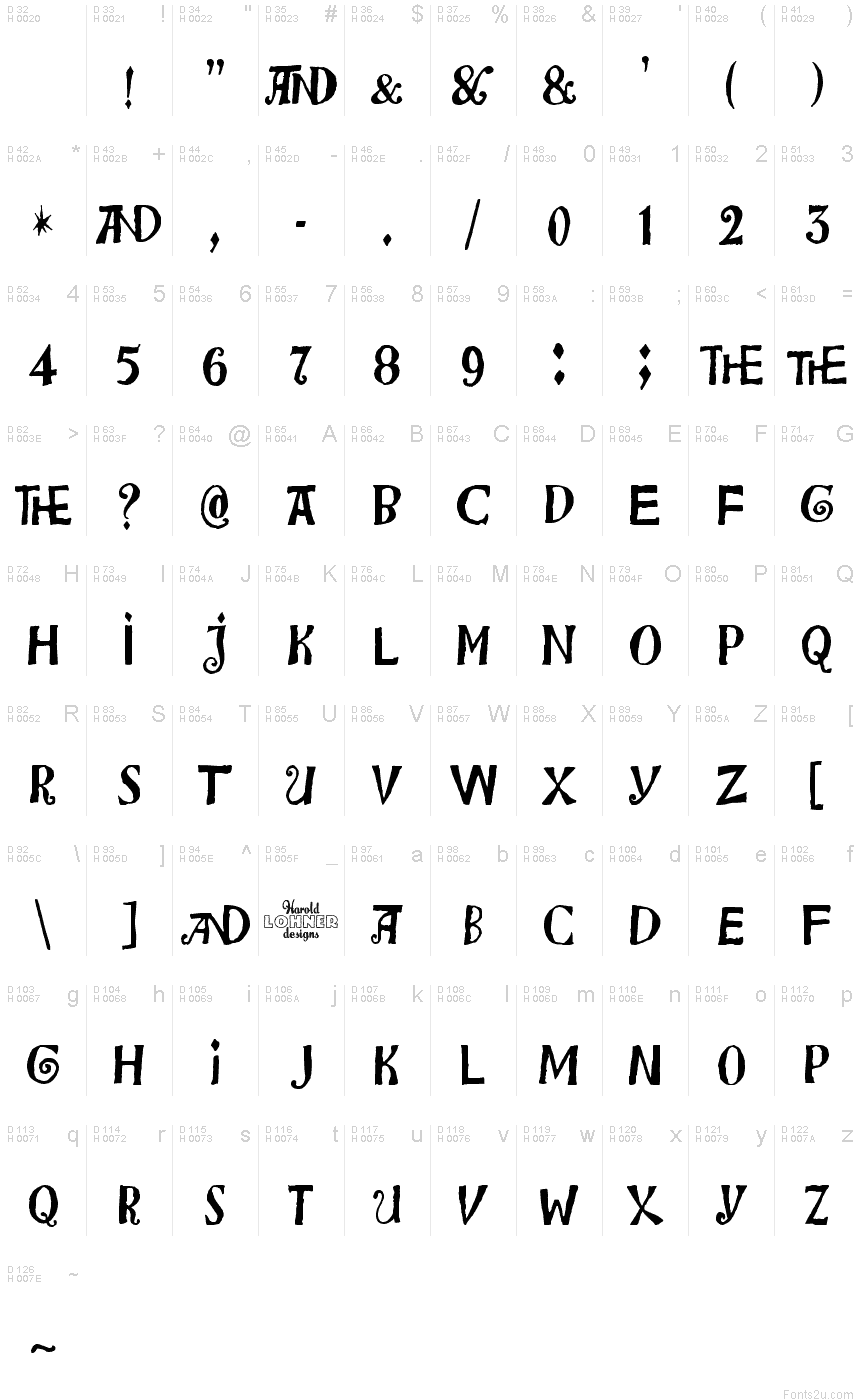
Bensgothic
Bensgothic font v1.0 ©1998 Harold Lohner All Rights Reserved. Based on a handlettering style of the artist Ben Shahn. SHAREWARE. $5 gets you the companion font of ligatures. HLohner@aol.com http://members.aol.com/fontner